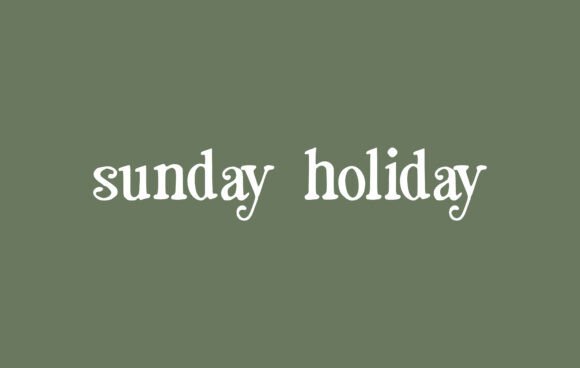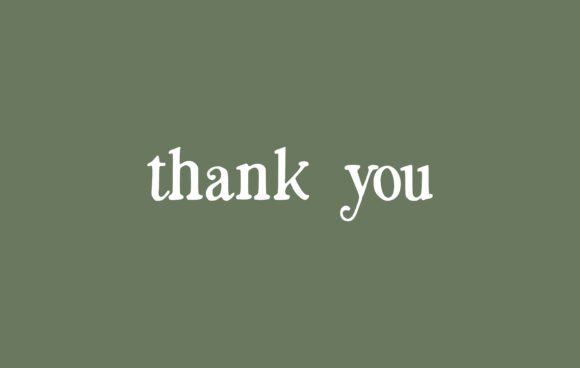
Introduction to Jemma Font
As designers, we’ve all been there – staring at a blank page, trying to find the perfect font to bring our creative ideas to life. The perfect font can make all the difference, elevating our work from good to great. And that’s where Jemma Font comes in – a beautiful, authentic handwritten font with a romantic touch that’s sure to capture the hearts of designers and non-designers alike.
Expertly designed to be a true favorite, Jemma Font is more than just a pretty face – it’s a high-quality design resource that’s perfect for a wide range of creative projects. Whether you’re working on a magazine headline, a social media campaign, or a wedding invitation, Jemma Font is sure to impress. And the best part? It’s a free download, available to anyone who needs a little design magic in their lives.
Key Features of Jemma Font
- Transparent background and intricate design elements for seamless integration
- Includes multiple font styles and weights for added versatility
- Perfect for use in digital designs, such as logos, branding materials, and more
Honest Review: Jemma Font
As a designer, I’m always on the lookout for high-quality design resources that can elevate my creative projects. Recently, I had the chance to try out the Jemma Font, and I must say it’s been a game-changer.
- What works well: ✨ The Jemma Font is incredibly versatile, with a wide range of styles and weights that make it perfect for any design project. I love that it’s available for free download, making it accessible to designers of all levels.
- What works well: ✨ The font also features a transparent background, which makes it easy to use in any design scenario. Whether you’re working on a logo, poster, or digital asset, Jemma Font is a great choice.
Overall, I’m really impressed with the Jemma Font. Its high quality and versatility make it a great addition to any designer’s toolkit. With its transparent background and wide range of styles, it’s perfect for any creative project. I highly recommend giving it a try!
Tips for Getting the Most Out of Jemma Font
To get the most out of Jemma Font, use it with a transparent background to create stunning designs. You can also experiment with different font sizes and styles to add visual interest to your project.
Jemma Font is perfect for use in logos, branding materials, and other creative projects where a high-quality font is needed. It’s also great for use in digital products, such as ebooks and presentations.